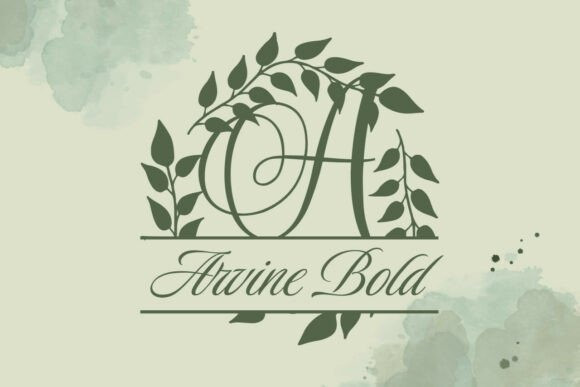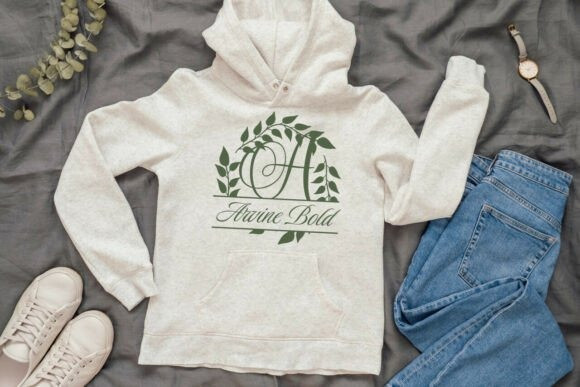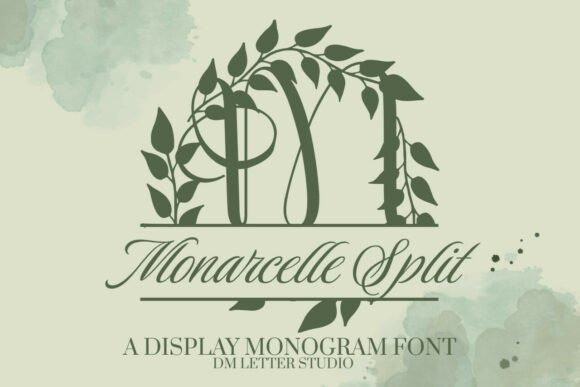
Monarcelle Split Monogram Font
Monarcelle Split Monogram Font is a highly refined and distinctive display monogram font that offers an exquisite blend of ornate script and organic nature for luxurious personalization.
This font’s unique element is the split initial, featuring a dramatic, high-contrast script letter with elegant flourishes that is visually divided by a horizontal cut, perfect for inserting a name or date. The initial is beautifully framed by a dense, naturalistic leafy wreath that suggests heritage and classic elegance.
This specialized typeface is an absolute necessity for high-end customization, personalized wedding stationery, engraved gifts, classic home decor, and sophisticated branding. The pairing of the flowing, slightly vintage script with the robust foliage wreath creates a look that is both regal and handcrafted, ensuring your monograms and initials are truly unique, exceptionally refined, and instantly convey a sense of bespoke, timeless luxury.
Where this Split Monogram Font shines
Set a single initial, then place the family name inside the split. Next, try a couple of names for keepsakes or venue names for signage. Since proportions favor clarity, designs scale from large wall art to tiny tags. As a result, Monarcelle Split Monogram Font works perfectly for Cricut, Glowforge, lasers, and vinyl projects.
Design tips for Monarcelle Split Monogram
Keep the main initial large to showcase the refined structure. Place the split line at the center or slightly low for balance. Meanwhile, pick a clean secondary font for the text inside the split. Because the look is airy, metallic accents and natural textures add instant value—think champagne foil on blush card or matte black on walnut wood. However, keep names short so everything remains readable at smaller sizes.
Why makers choose this Monarcelle Split Monogram Font
You want fast personalization that still looks high-end. Monarcelle Split Monogram Font delivers.
It helps you craft custom gifts, signs, and décor in minutes, while keeping your shop style consistent across many product types. Therefore, one font can anchor an entire line of name-ready pieces.